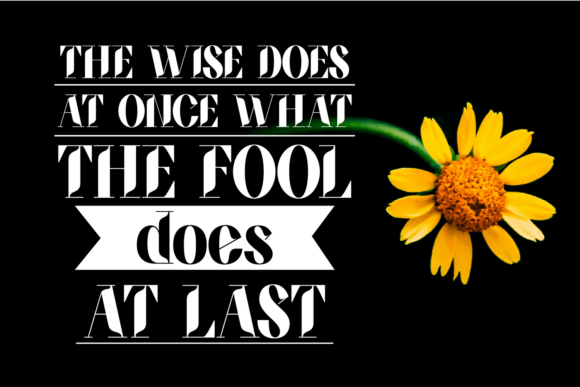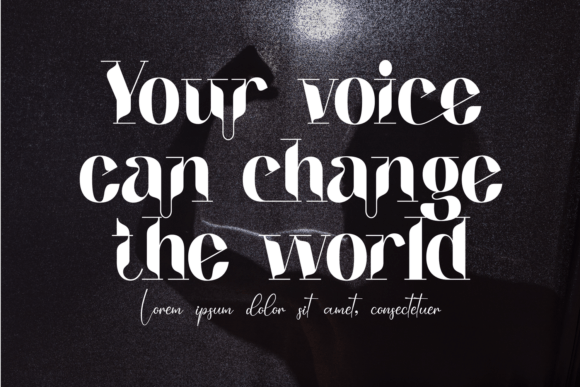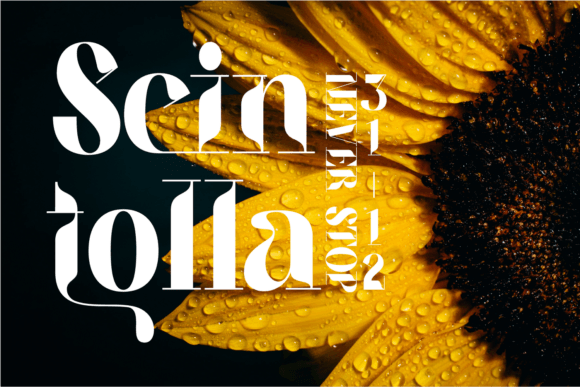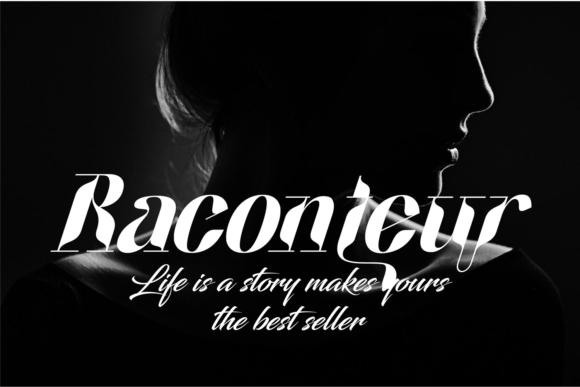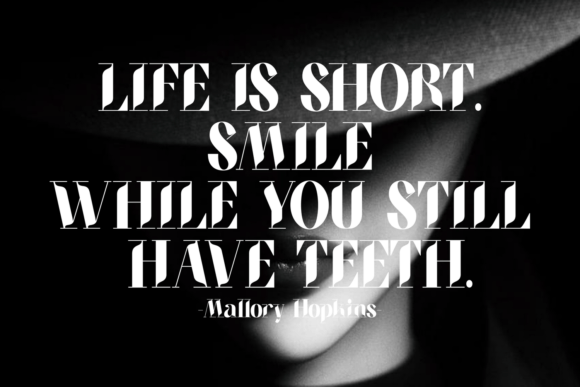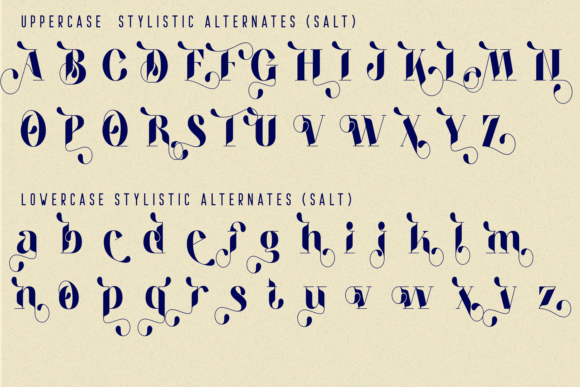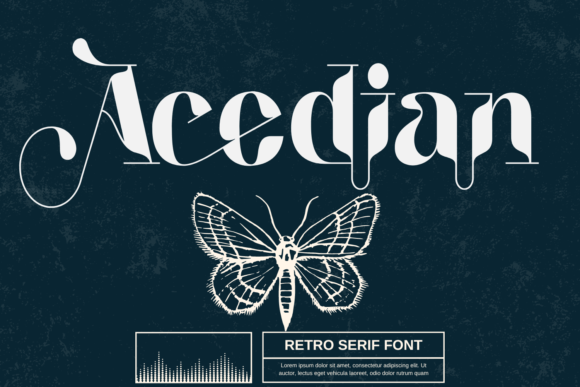
Acedian Font: Elevate Your Designs with Timeless Elegance
In the world of typography, few fonts capture the essence of luxury and refinement as effortlessly as Acedian. This elegant and sophisticated typeface is a masterful blend of classic charm and modern flair, making it the perfect choice for designers and crafters seeking to add a touch of nostalgia and class to their projects. In this article, we’ll delve into the world of Acedian Font, exploring its unique features, applications, and the benefits of incorporating it into your design repertoire.
The Vintage Aesthetic of Acedian Font
Acedian Font is a beautiful representation of the retro era, with delicate serifs and intricate details that evoke a sense of luxury and refinement. Its vintage aesthetic is reminiscent of a bygone era, when craftsmanship and attention to detail were paramount. The font’s classic charm is perfect for high-end branding, editorial layouts, and book covers, where a touch of sophistication and elegance is required.
Key Features of Acedian Font
So, what sets Acedian Font apart from other typefaces? Here are a few key features that make it a standout choice for designers and crafters:
- Elegant Serifs: Acedian’s delicate serifs add a touch of refinement and sophistication to any design project.
- Intricate Details: The font’s intricate details and ornate flourishes evoke a sense of luxury and craftsmanship.
- Vintage Aesthetic: Acedian’s retro charm is perfect for designers seeking to add a touch of nostalgia and class to their projects.
- PUA Encoding: Acedian Font is PUA encoded, making it easy to access all delightful glyphs and swashes effortlessly.
Applications of Acedian Font
Acedian Font is a versatile typeface that can be used in a variety of design applications, including:
- High-End Branding: Acedian’s luxurious aesthetic makes it perfect for high-end branding and packaging design.
- Editorial Layouts: The font’s elegant serifs and intricate details make it a great choice for editorial layouts, such as magazines and newspapers.
- Book Covers: Acedian Font is ideal for book covers, where a touch of sophistication and elegance is required.
- Stationery and Invitations: The font’s vintage aesthetic makes it perfect for stationery and invitation design.
Benefits of Using Acedian Font
So, why choose Acedian Font for your design projects? Here are a few benefits of incorporating this beautiful typeface into your repertoire:
- Unique Aesthetic: Acedian Font offers a unique and distinctive aesthetic that sets it apart from other typefaces.
- Versatility: The font’s versatility makes it suitable for a wide range of design applications.
- Ease of Use: Acedian Font is PUA encoded, making it easy to access all delightful glyphs and swashes effortlessly.
- Time-Saving: With Acedian Font, designers can save time and effort, as the font’s intricate details and ornate flourishes are already built-in.
Tips for Using Acedian Font
To get the most out of Acedian Font, here are a few tips to keep in mind:
- Use it Sparingly: Acedian Font is a statement piece, so use it sparingly to make a maximum impact.
- Experiment with Pairings: Try pairing Acedian Font with other typefaces to create a unique and visually appealing combination.
- Pay Attention to Kerning: As with any font, pay attention to kerning to ensure that your text is easy to read and visually appealing.
In conclusion, Acedian Font is a beautiful and sophisticated typeface that embodies the timeless charm of the retro era. Its delicate serifs, intricate details, and vintage aesthetic make it perfect for high-end branding, editorial layouts, and book covers. With its PUA encoding, designers can easily access all delightful glyphs and swashes effortlessly. Whether you’re a designer or crafter, Acedian Font is a great addition to your repertoire, offering a unique aesthetic, versatility, and ease of use.